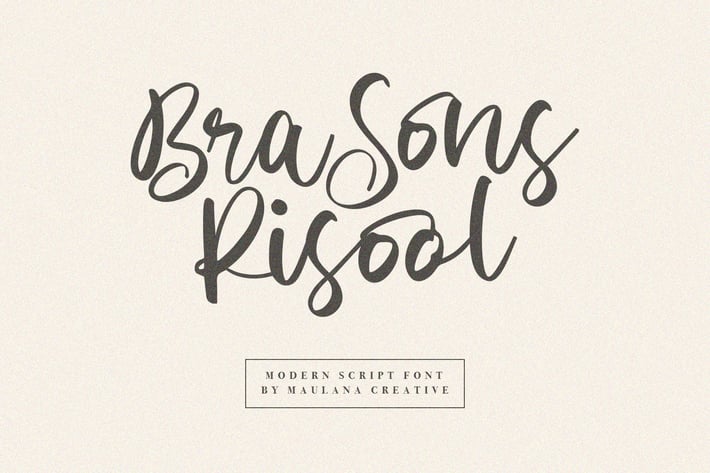
Brasons Risool Modern Script Font
Give your designs an authentic handcrafted feel. "Brasons Risool" is perfectly suited to signature, stationery, logo, typography quotes, magazine or book cover, website header, clothing, branding, packaging design and more.